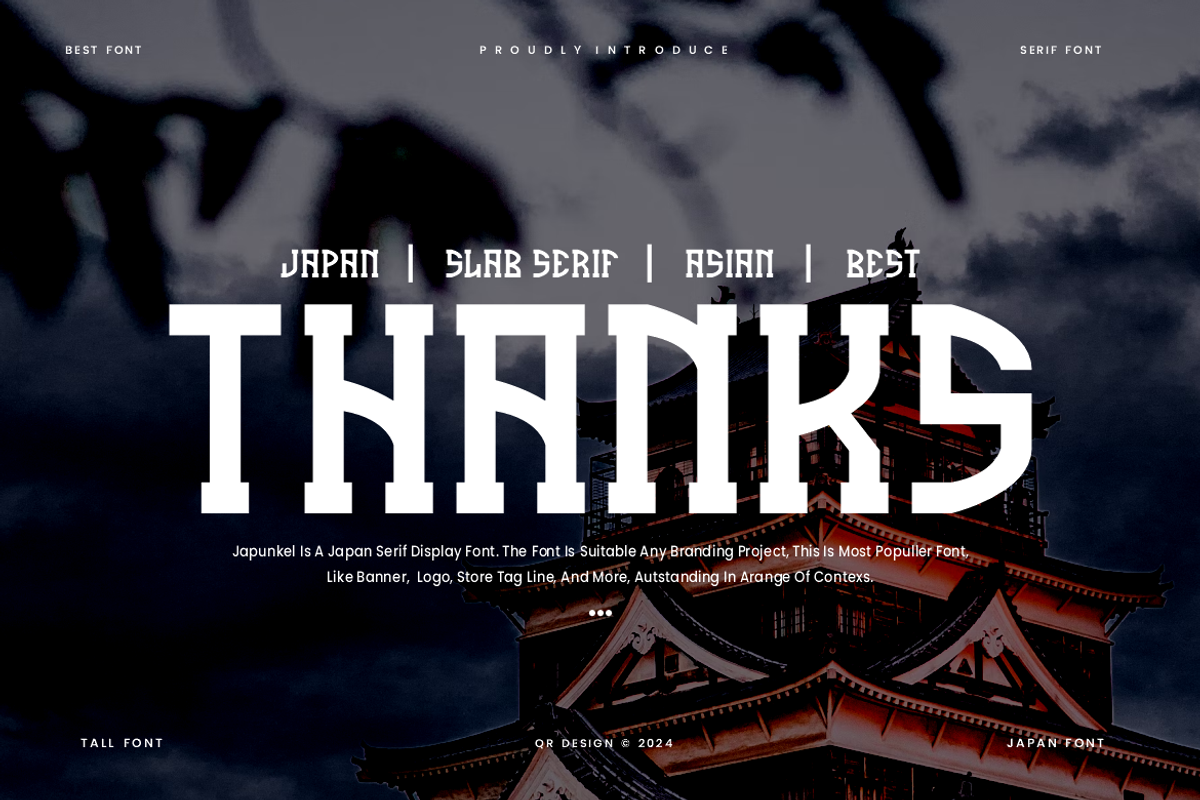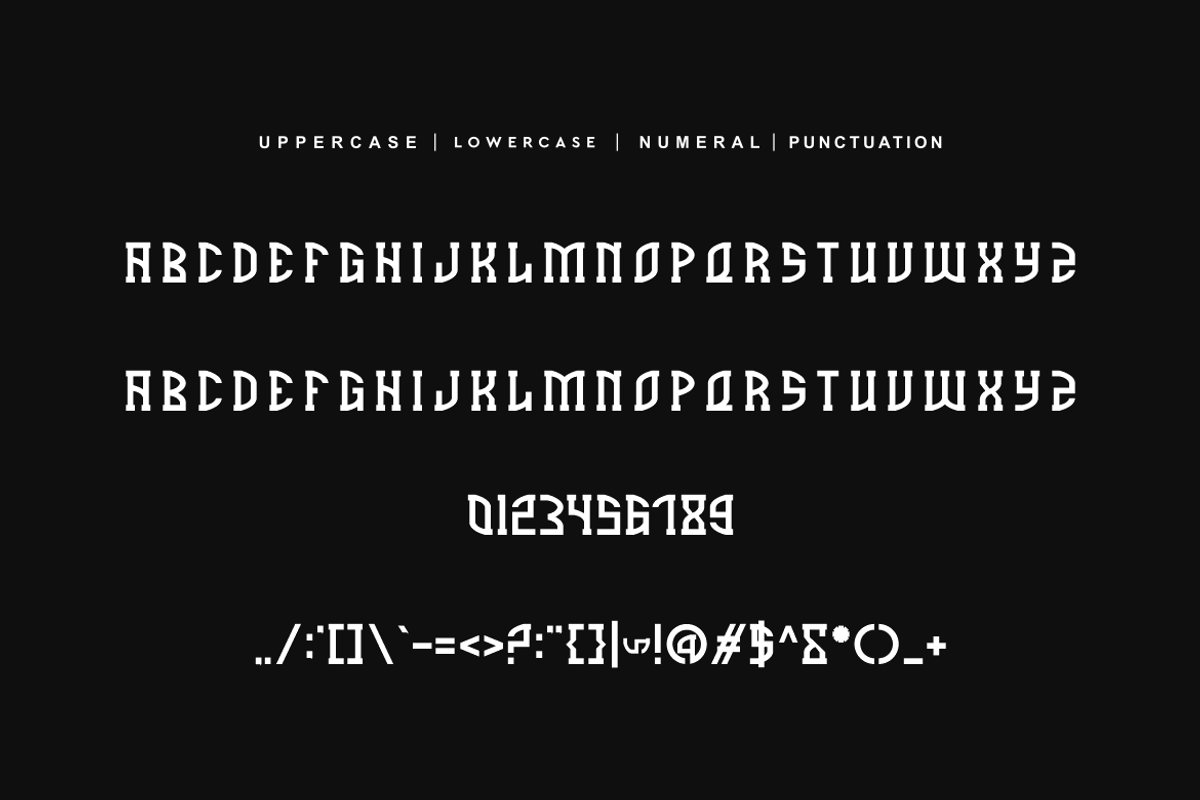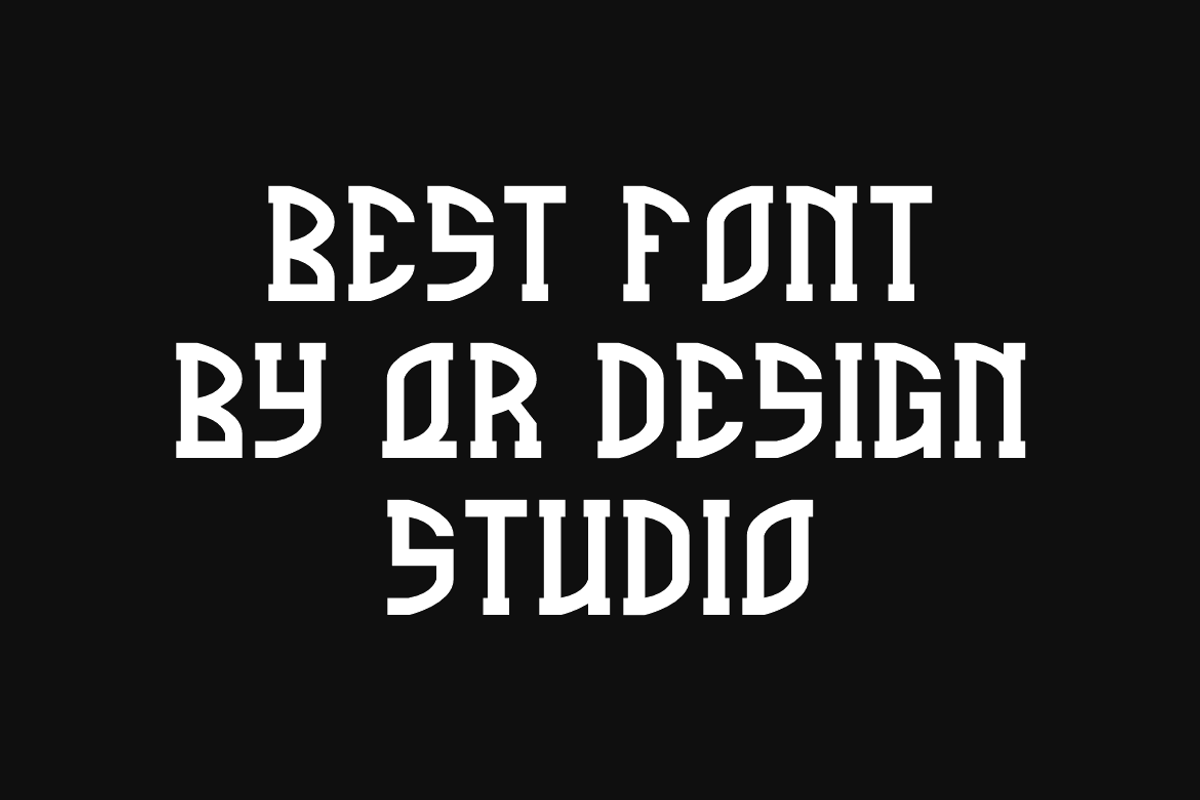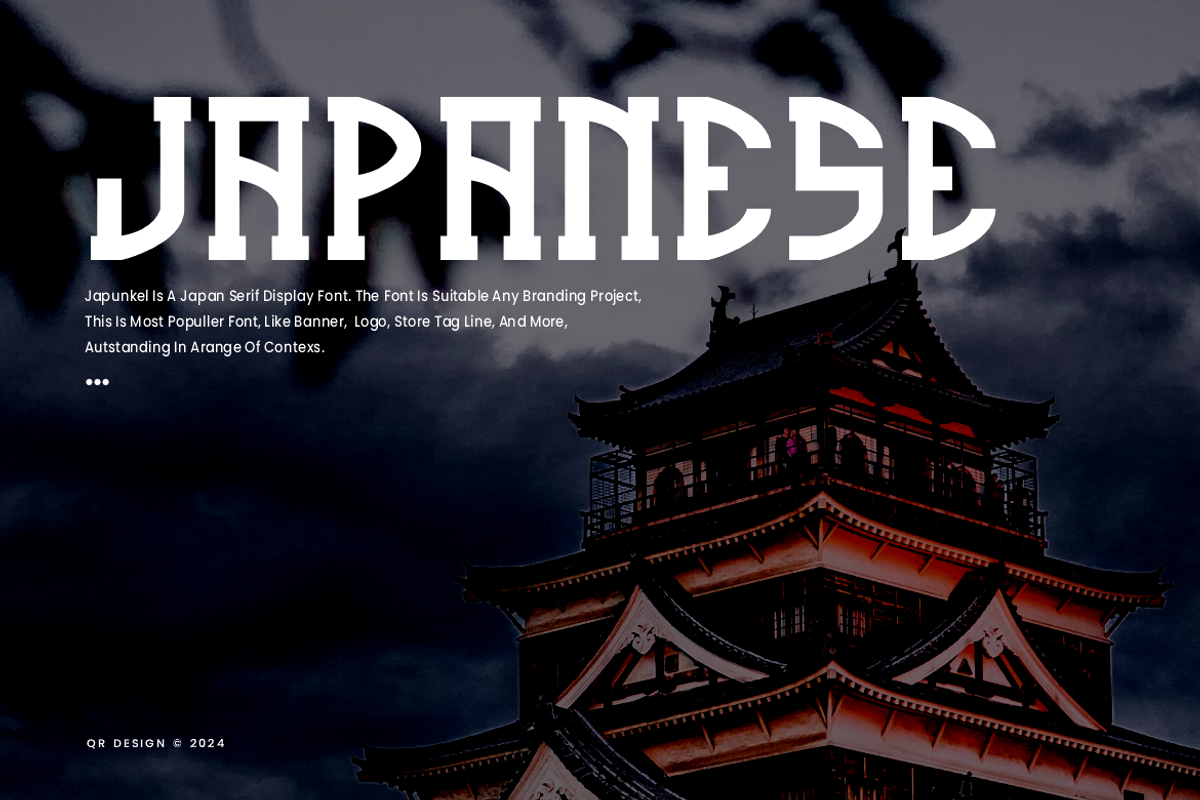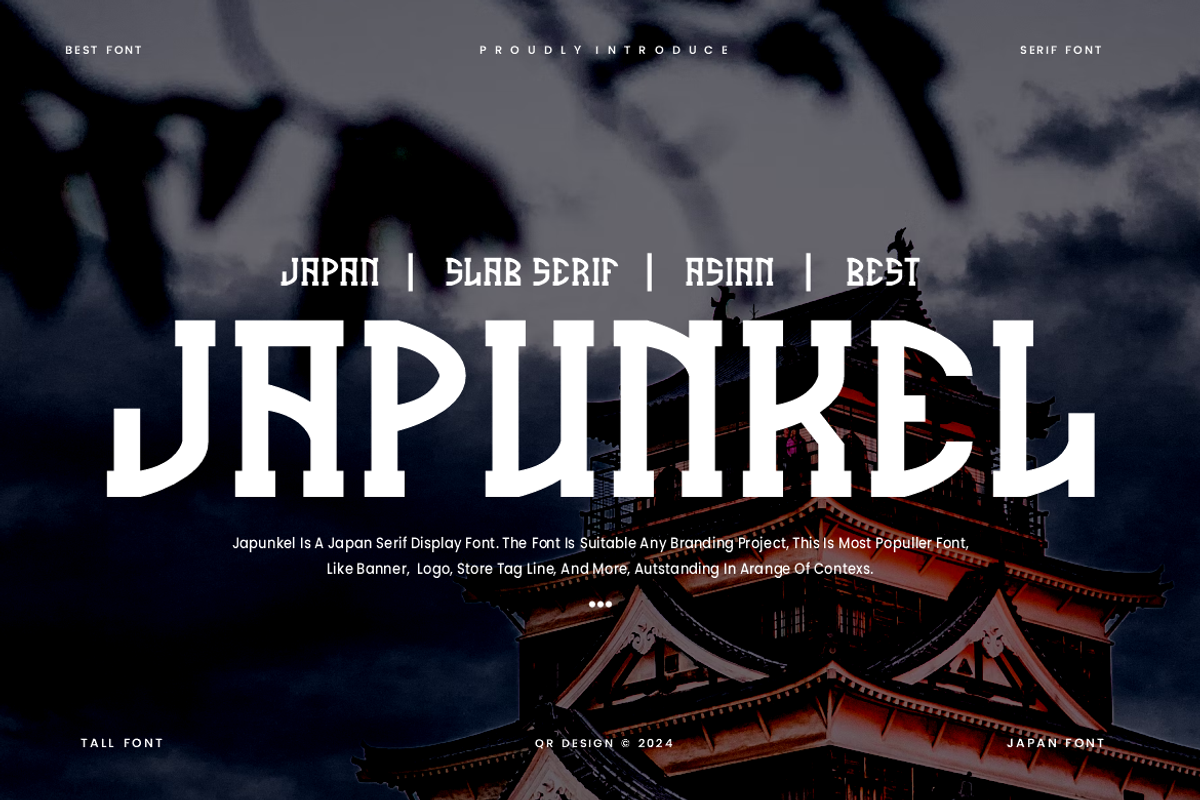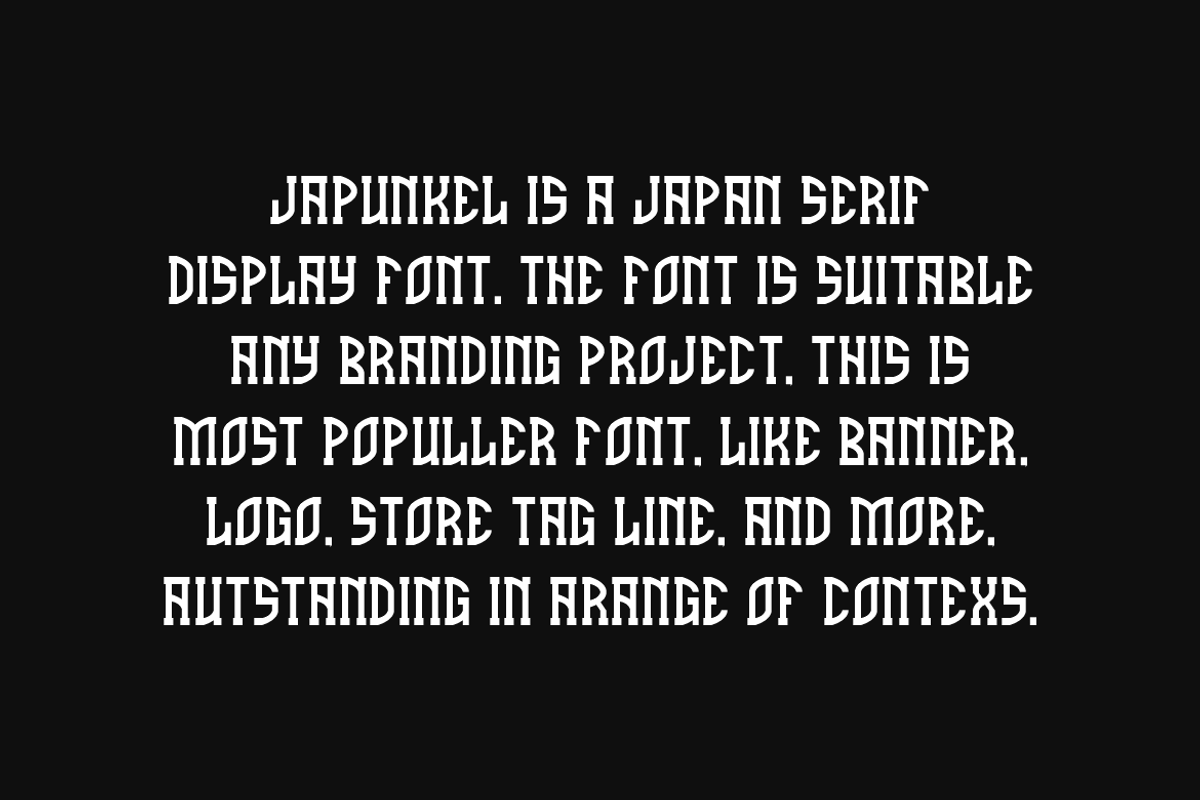
Japunkel - Japanese & Asian Font
Japunkel Font is a slab serif and authentic display font. The font is suitable for any branding project like poster, logo, sport, and many more. Outstanding in a wide range of contexts.